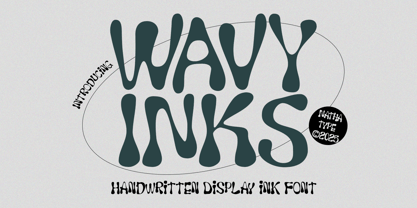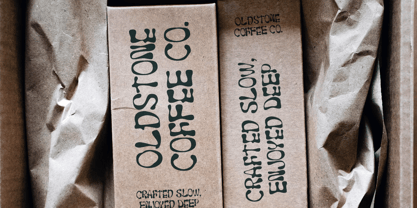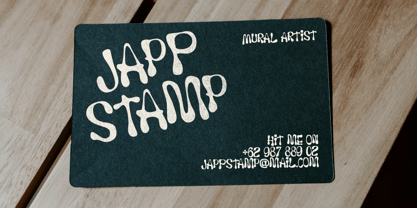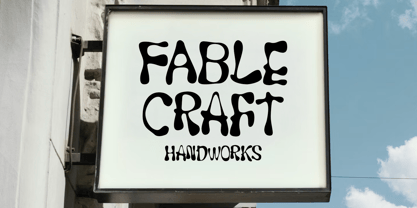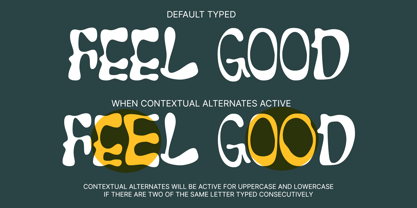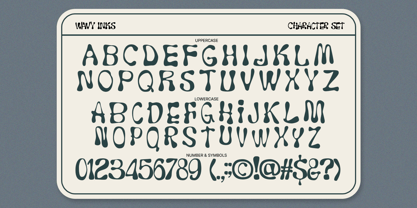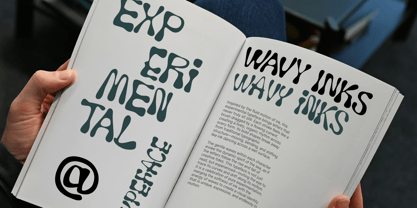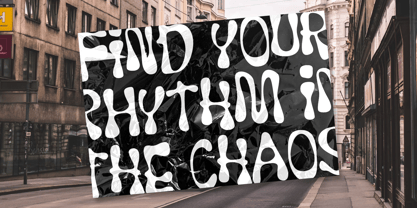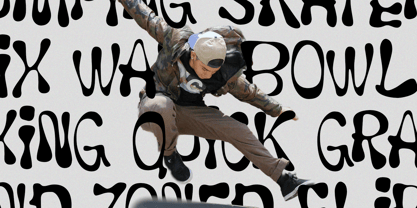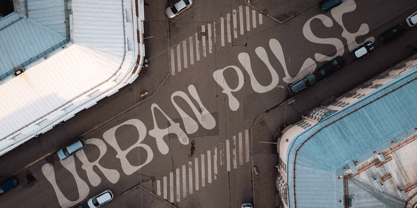
Wavy Inks
Wavy Inks is a distinctive handwritten display font designed to bring raw creativity and artistic energy into your typography. Made entirely in uppercase letters, this font is made in irregular letterforms and organic, non-straight outlines that capture the natural movement of hand-drawn ink. The imperfect strokes and uneven contours give Wave Inks a bold, expressive personality that feels authentic, creative, and full of character. In addition, enjoy the features here. Features: Alternates Multilingual Supports PUA Encoded Numerals and Punctuations Wavy Inks fits in logos, quotes, branding, posters, and many more designs. Find out more ways to use this font by taking a look at the font preview. Thanks for purchasing our fonts. Hopefully, you have a great time using our font. Feel free to contact us anytime for further information or when you have trouble with the font. Thanks a lot and happy designing.